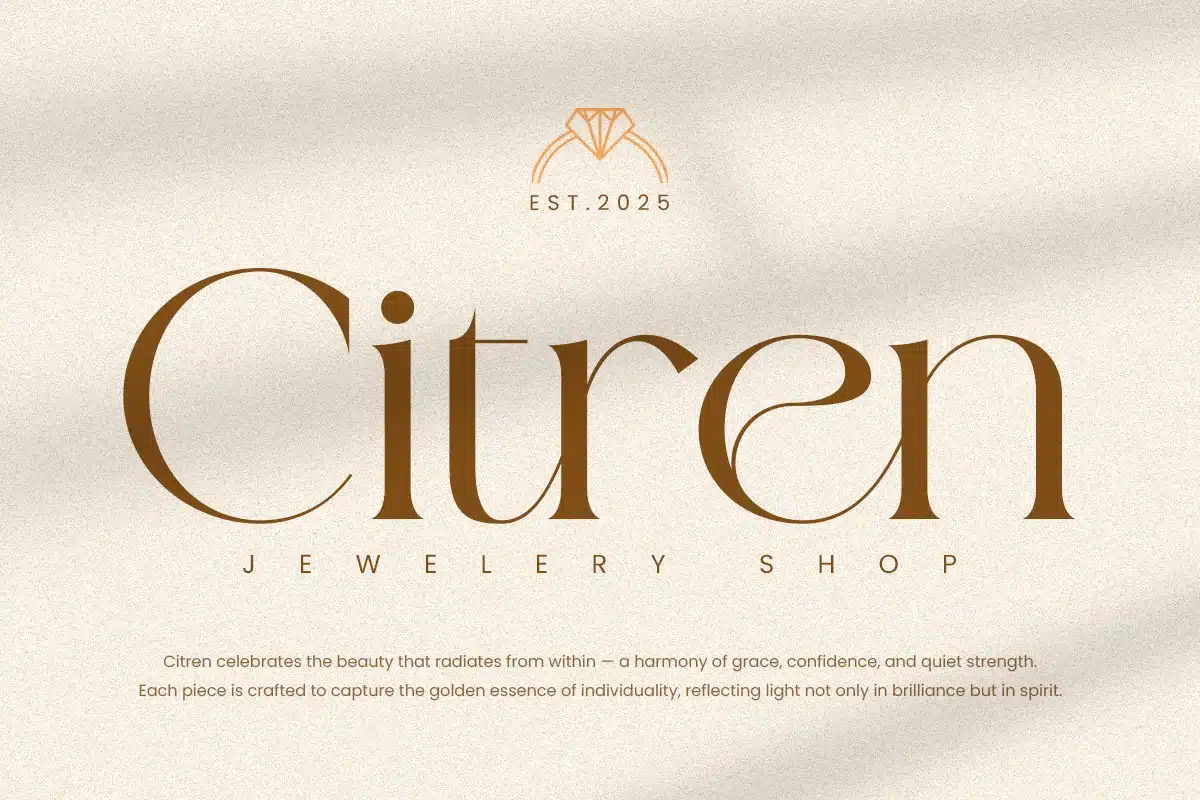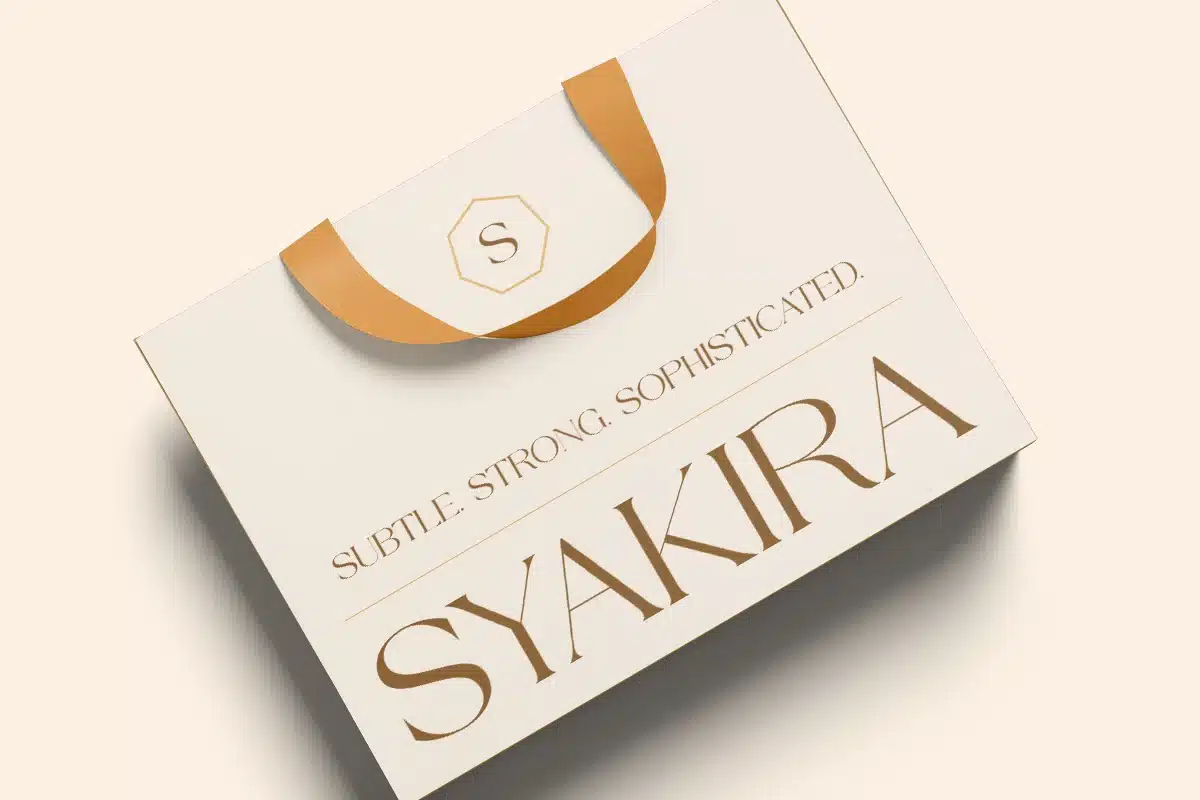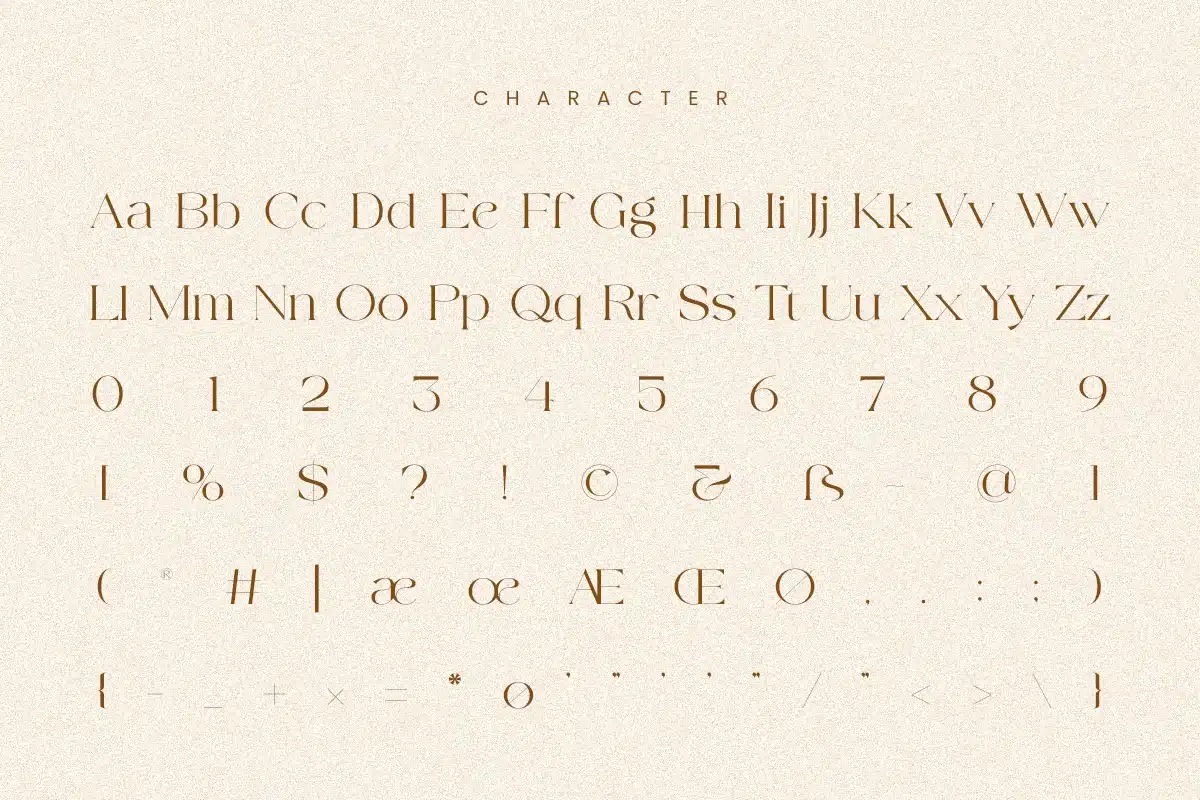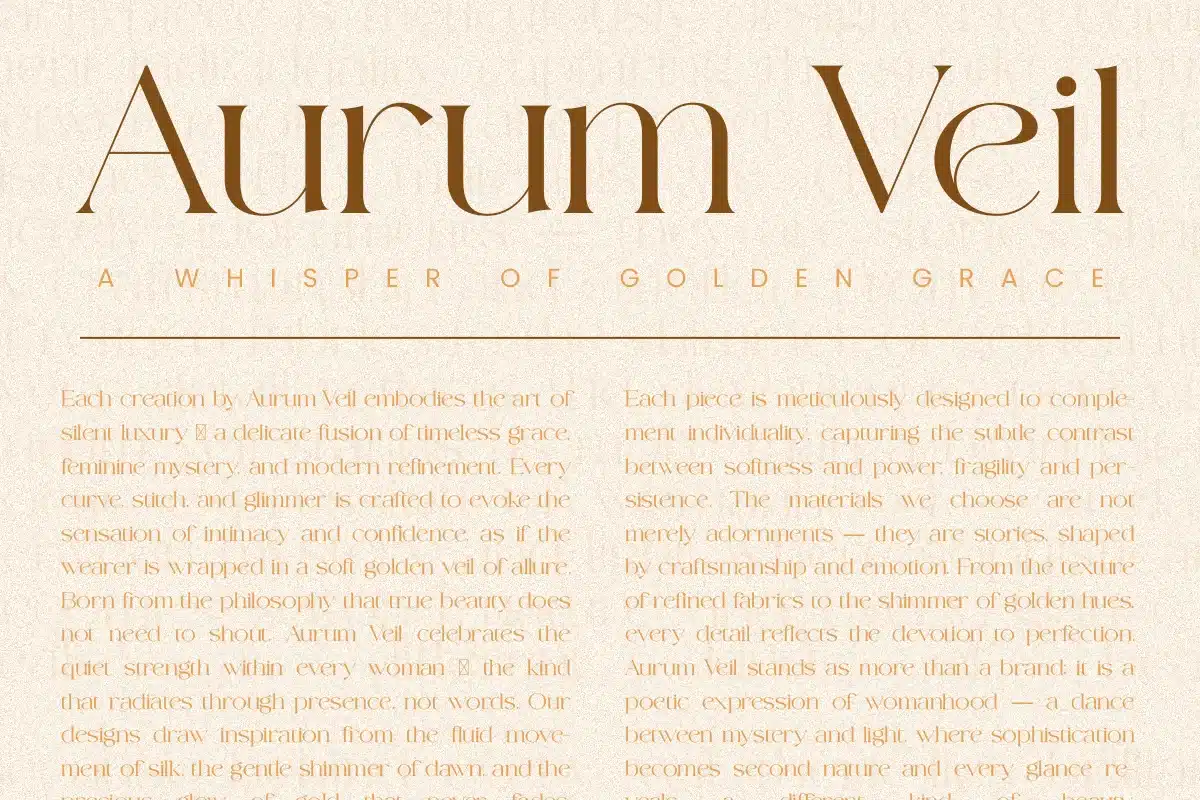
Rasther Font
A luxurious serif typeface designed to elevate your branding with timeless sophistication. Each curve and stroke of Rasther was carefully crafted to capture the essence of modern luxury — bold, graceful, and endlessly refined.
Perfect for high-end branding, editorial layouts, fashion logos, and packaging that demands a touch of class. With its elegant ligatures and stylish letterforms, Rasther brings a unique sense of prestige and warmth to every design.
Whether used for a headline, magazine title, or luxury logo, Rasther Serif exudes confidence and beauty in every detail.
Elegant Ligatures
Perfect for Logo, Branding, Editorial & Packaging
Bring timeless elegance to your designs with Rasther Serif ,a new standard of sophistication.